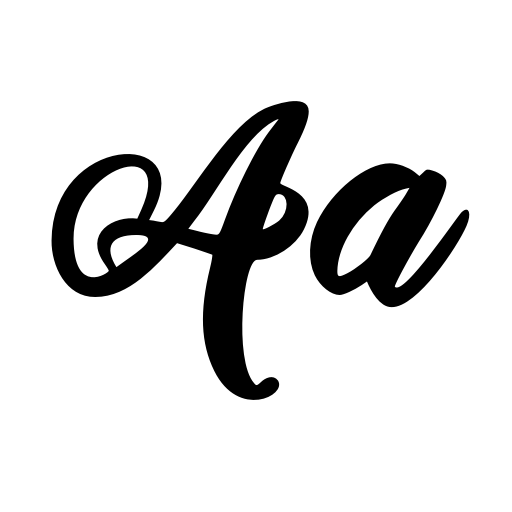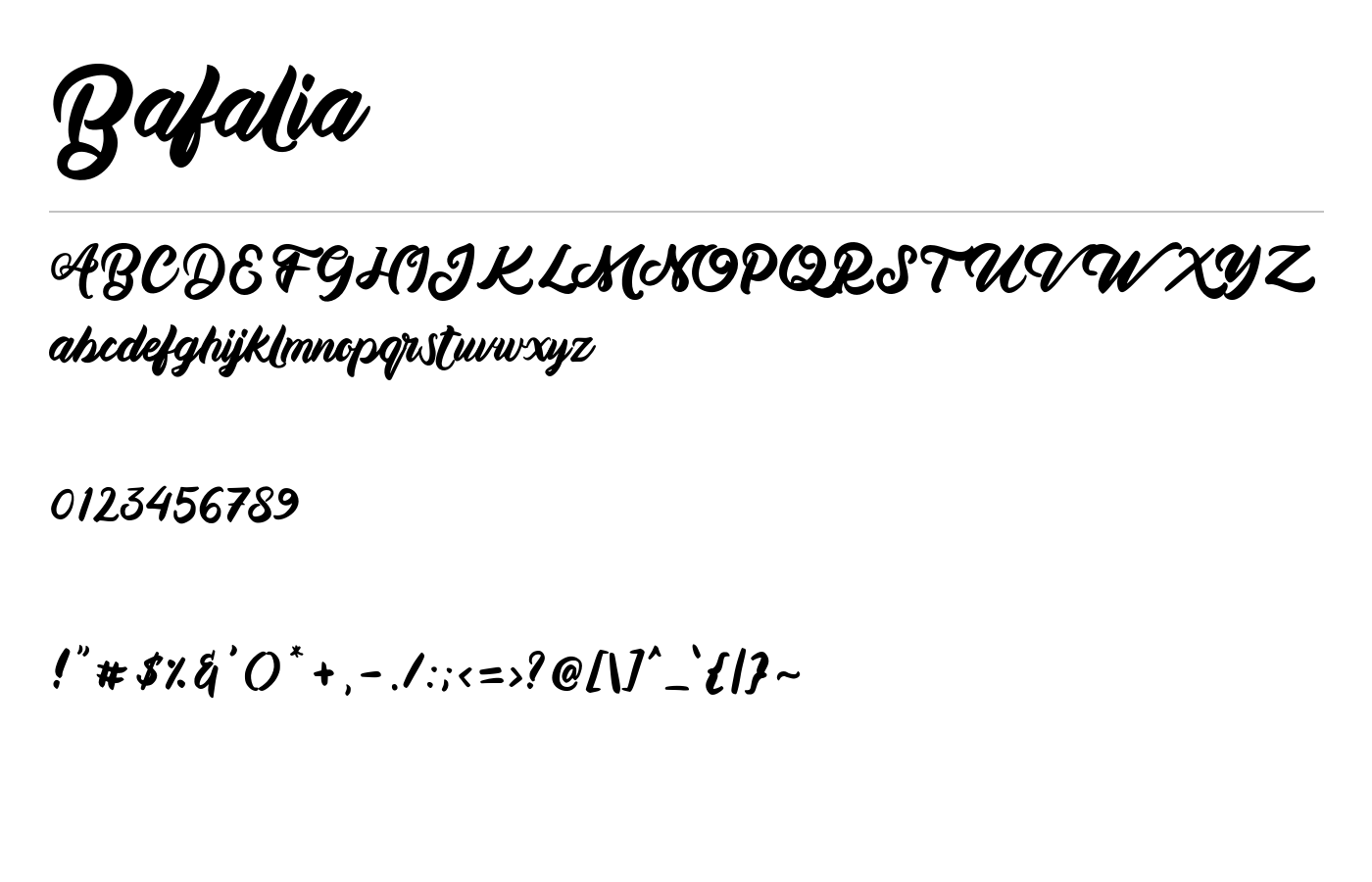
Bafalia is a bold, cursive script font with a smooth, flowing style that adds a lively and friendly personality to any design. Its moderately condensed letterforms and high contrast strokes create a dynamic yet readable look, making it ideal for branding, headlines, and playful creative projects that seek a warm, approachable vibe. This font shines in logos, invitations, and packaging where a handwritten, elegant touch is desired.
Bafalia Font
About Bafalia Font